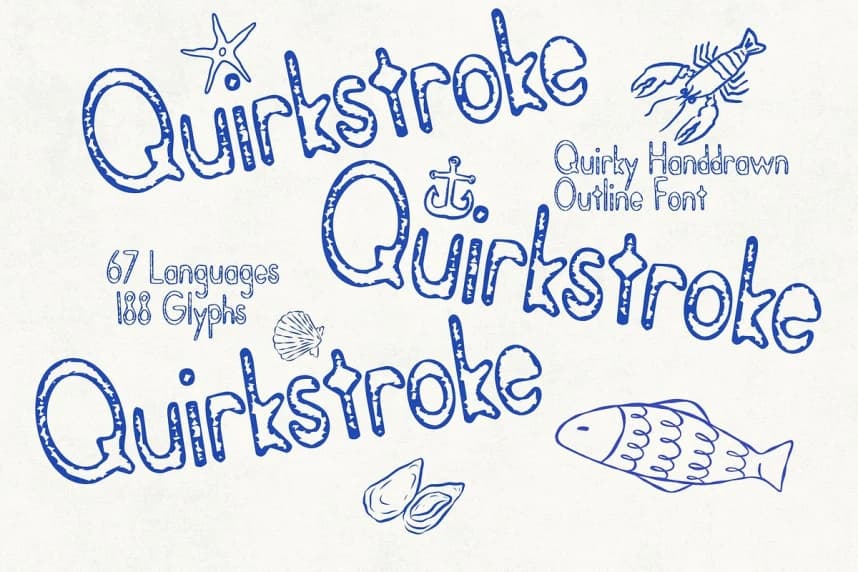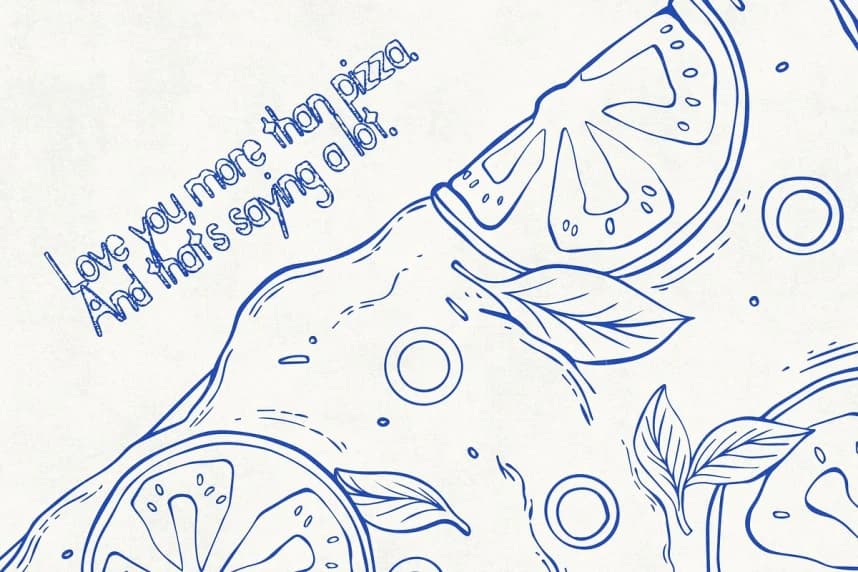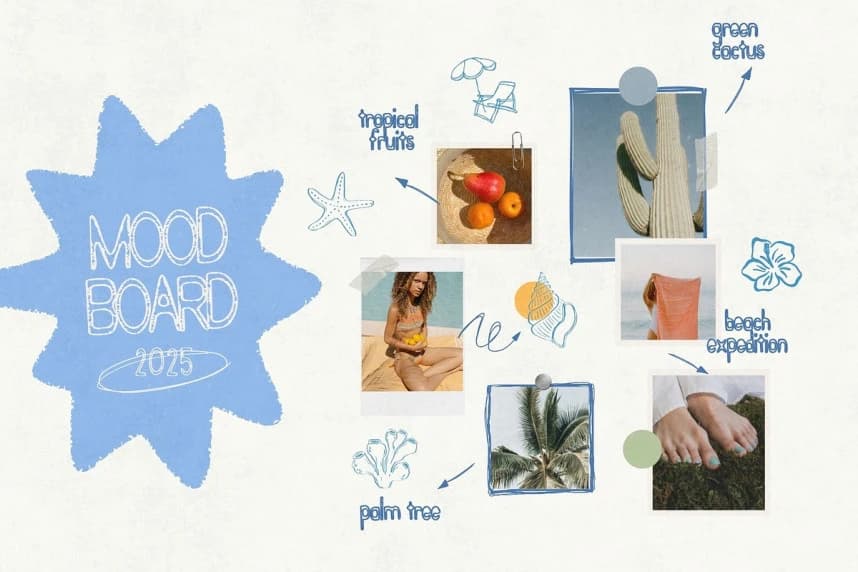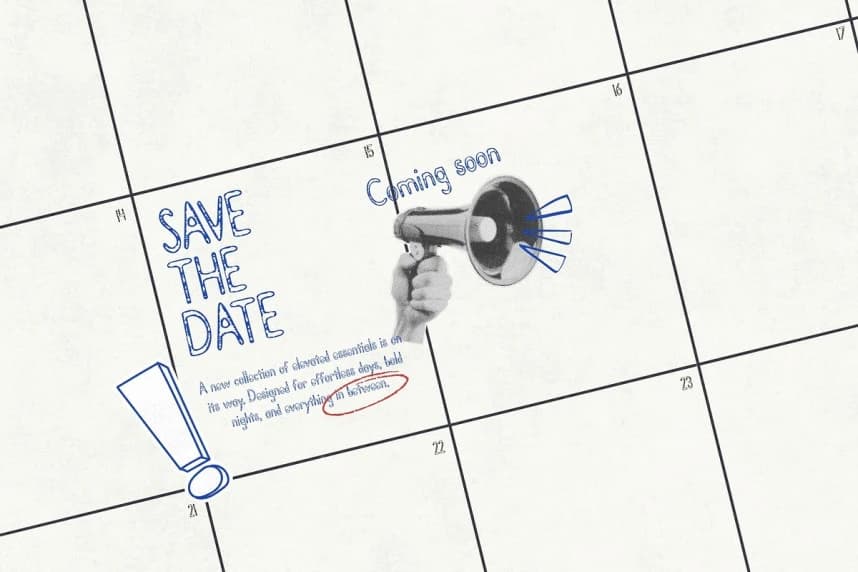
Quirkstroke Playful Font
Quirkstroke Playful Font, a handmade, sketch-style outline typeface with a grungy, weathered charm. Perfect for projects that don’t take themselves too seriously, this font embodies a childlike playfulness while maintaining a unique, hand-crafted edge.